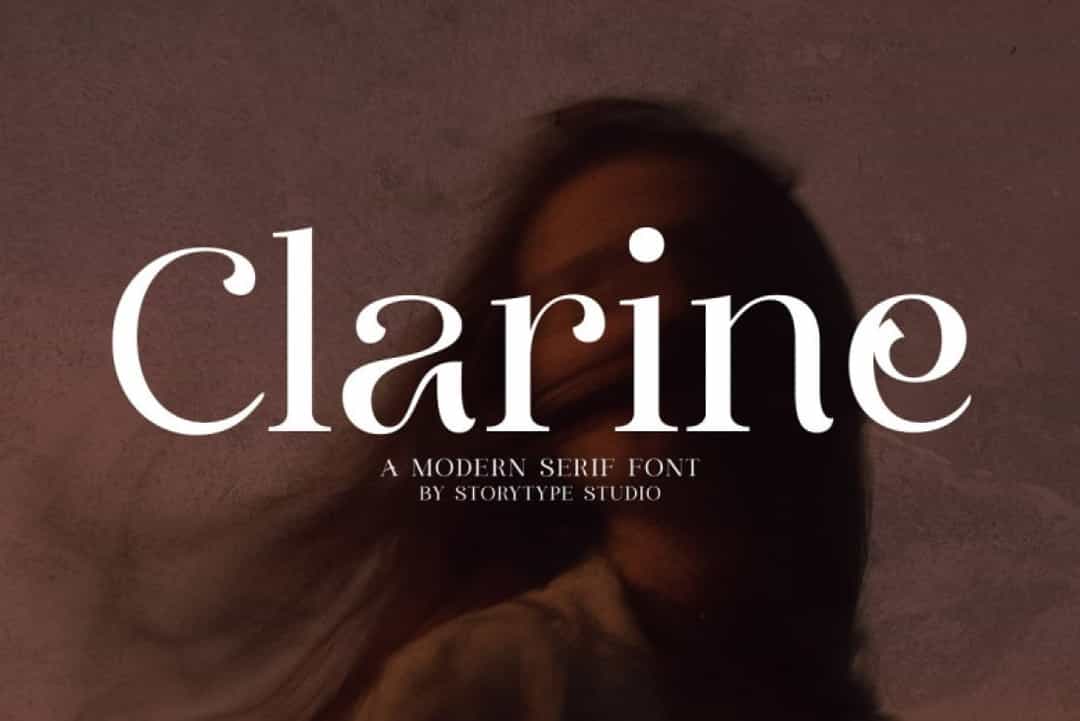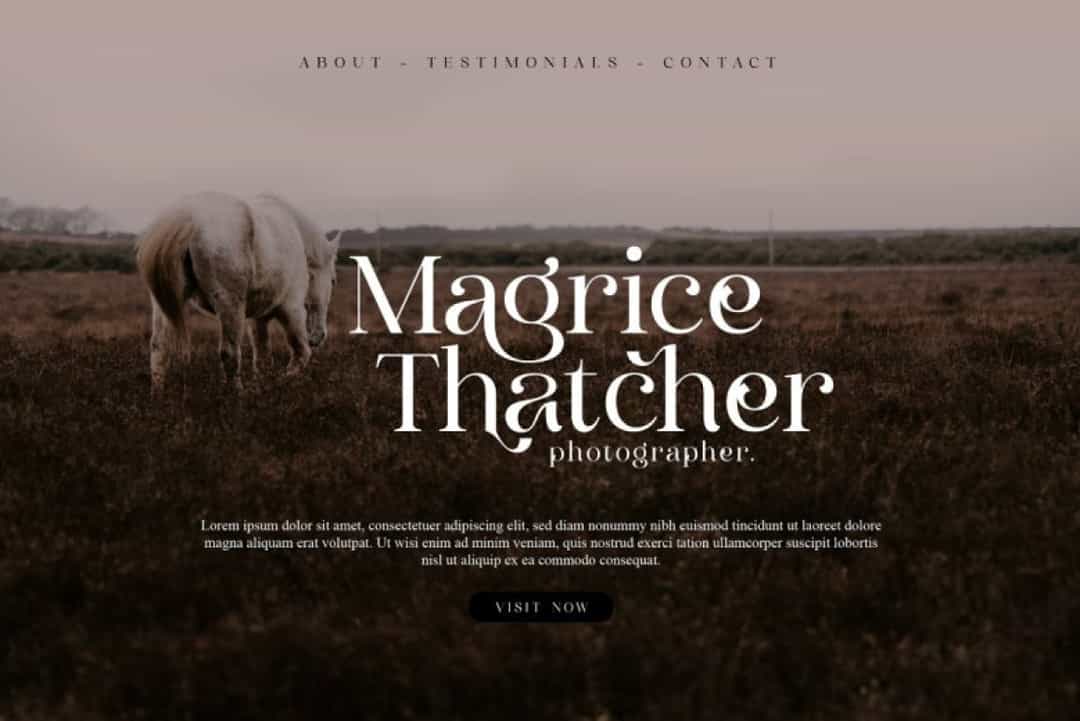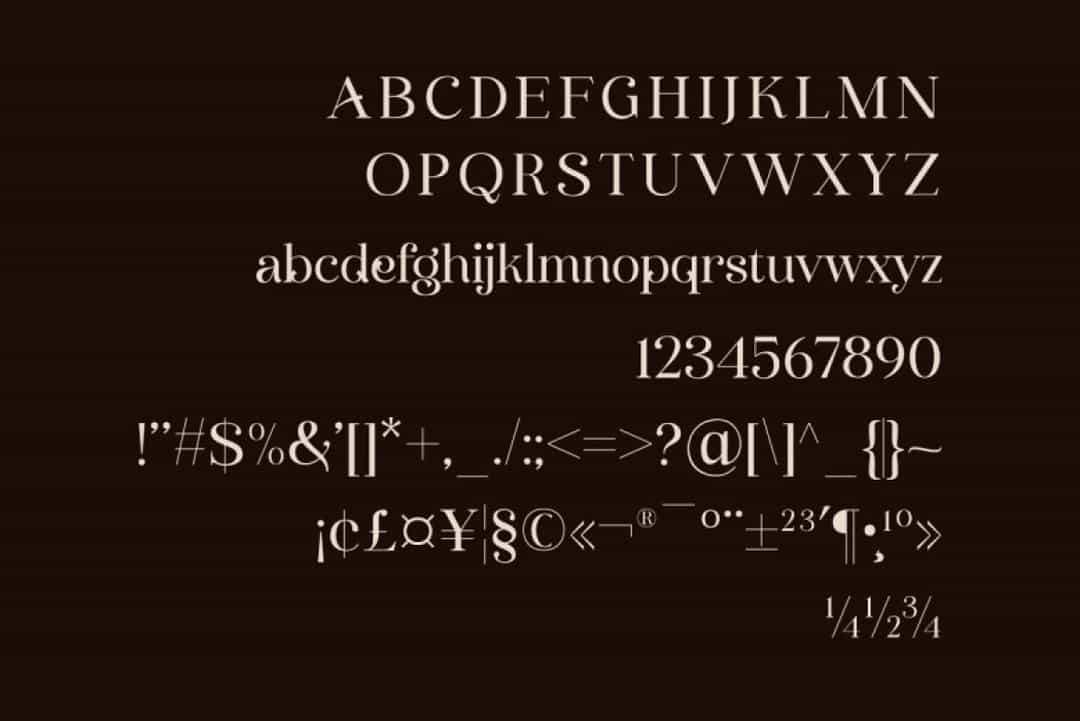
Clarine Serif Typeface by Storytype is an elegant yet classic serif typeface, featuring its distinctive style and contemporary appearance. Perfect for logo design, movie titles, book titles, fashion brands clothes magazines lettering quotes etc this typeface provides plenty of opportunities.